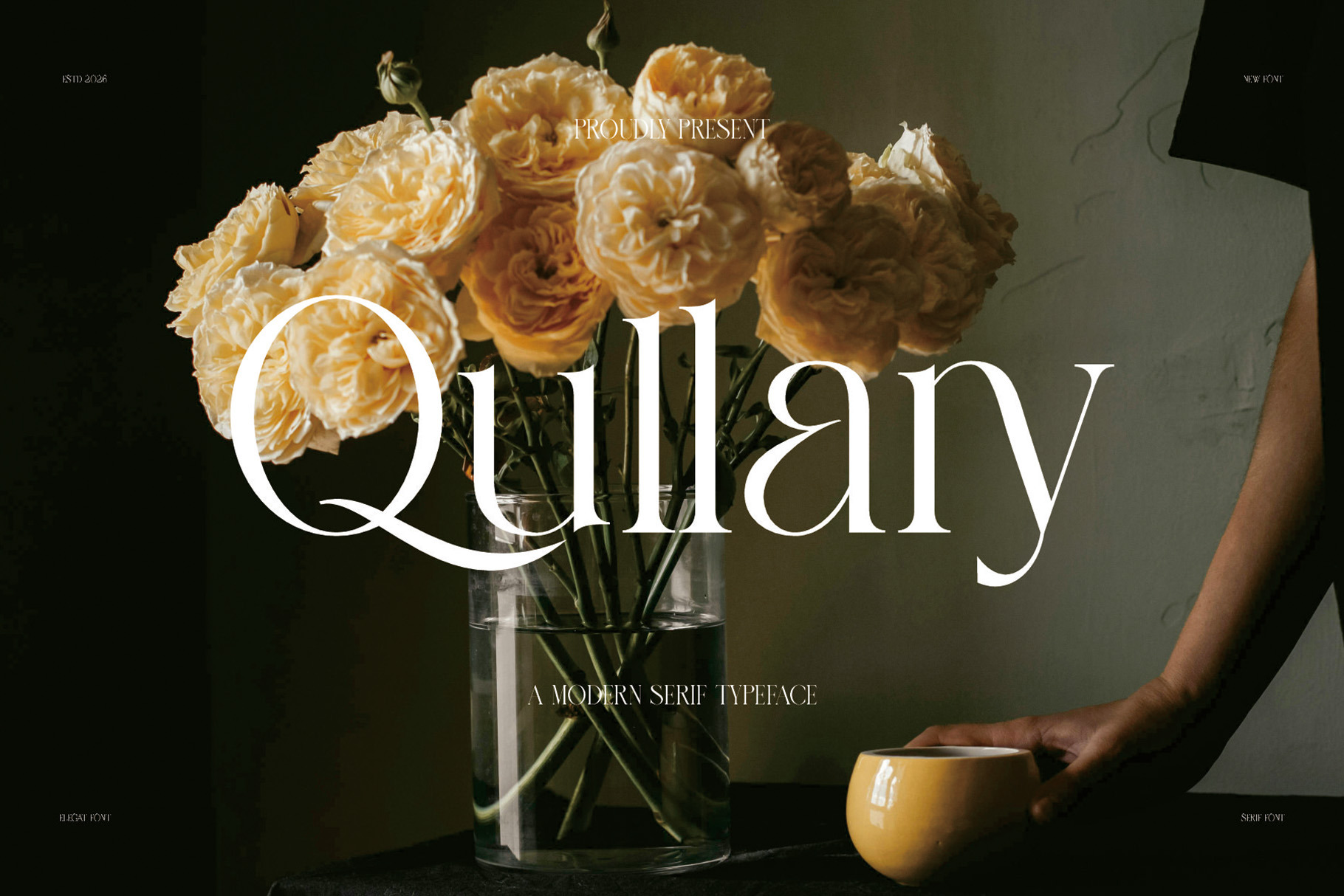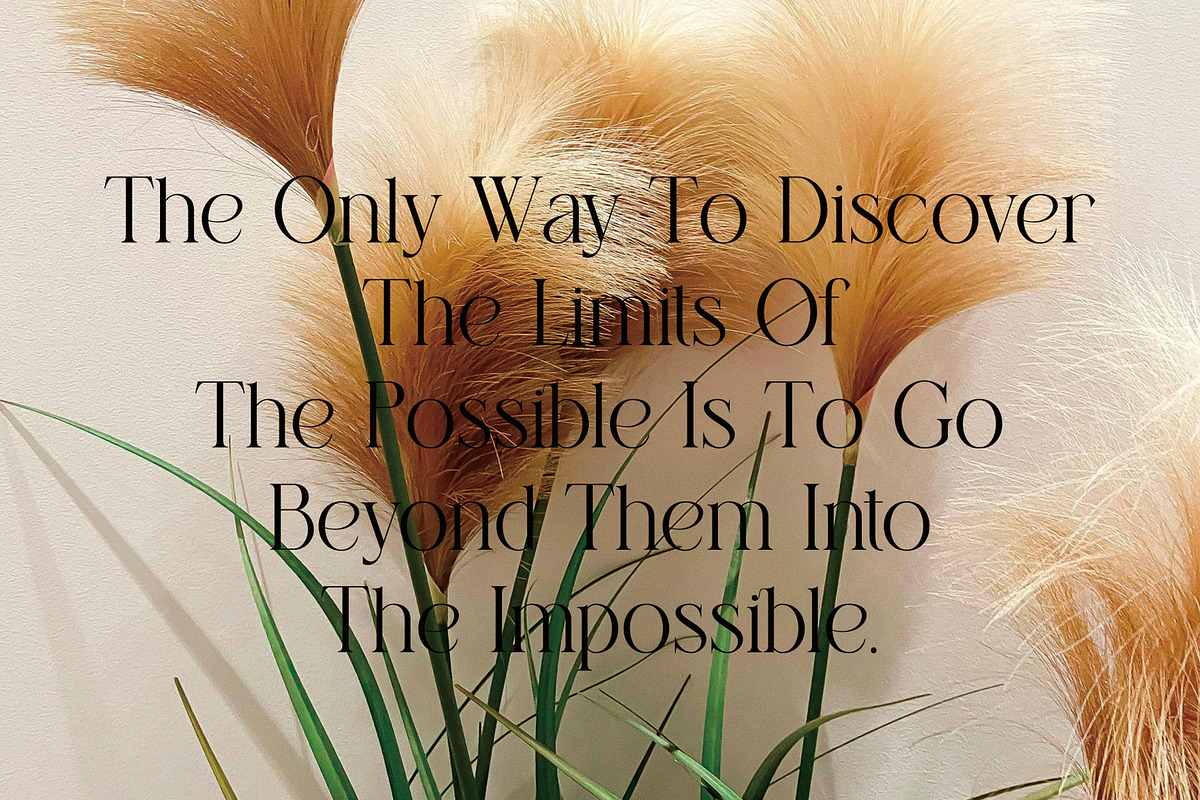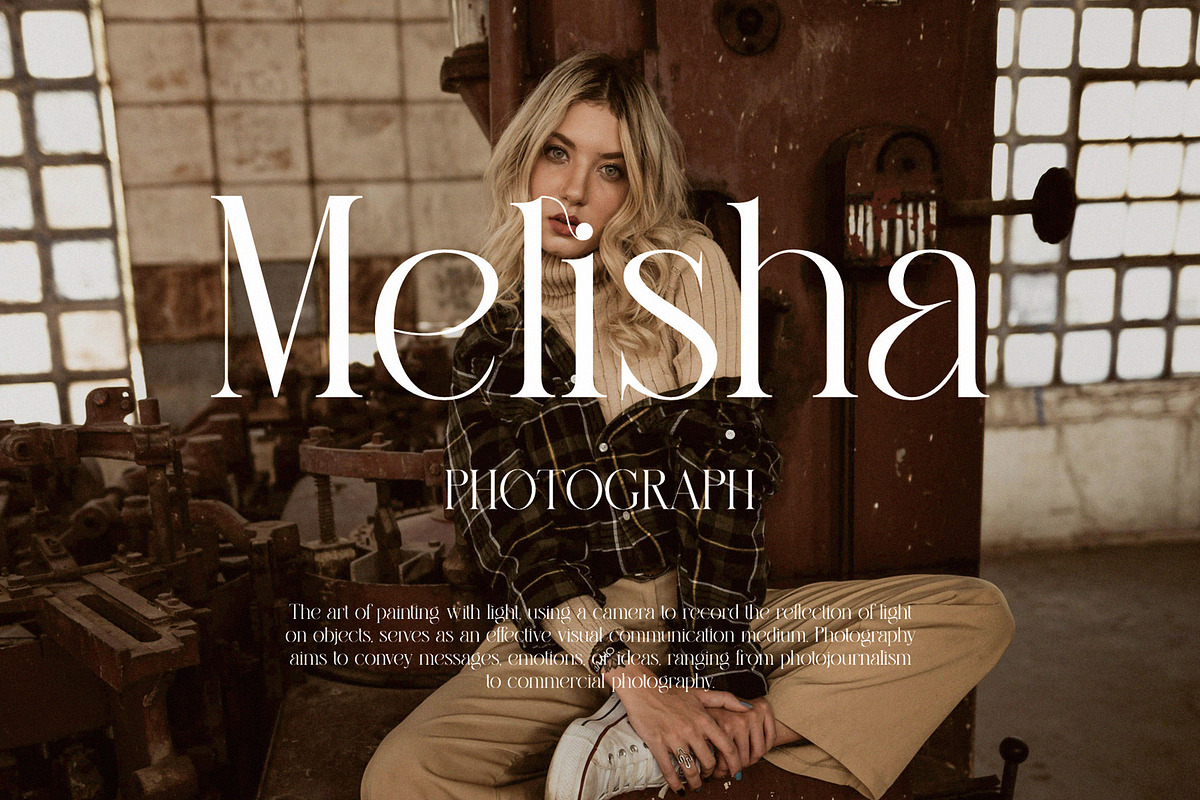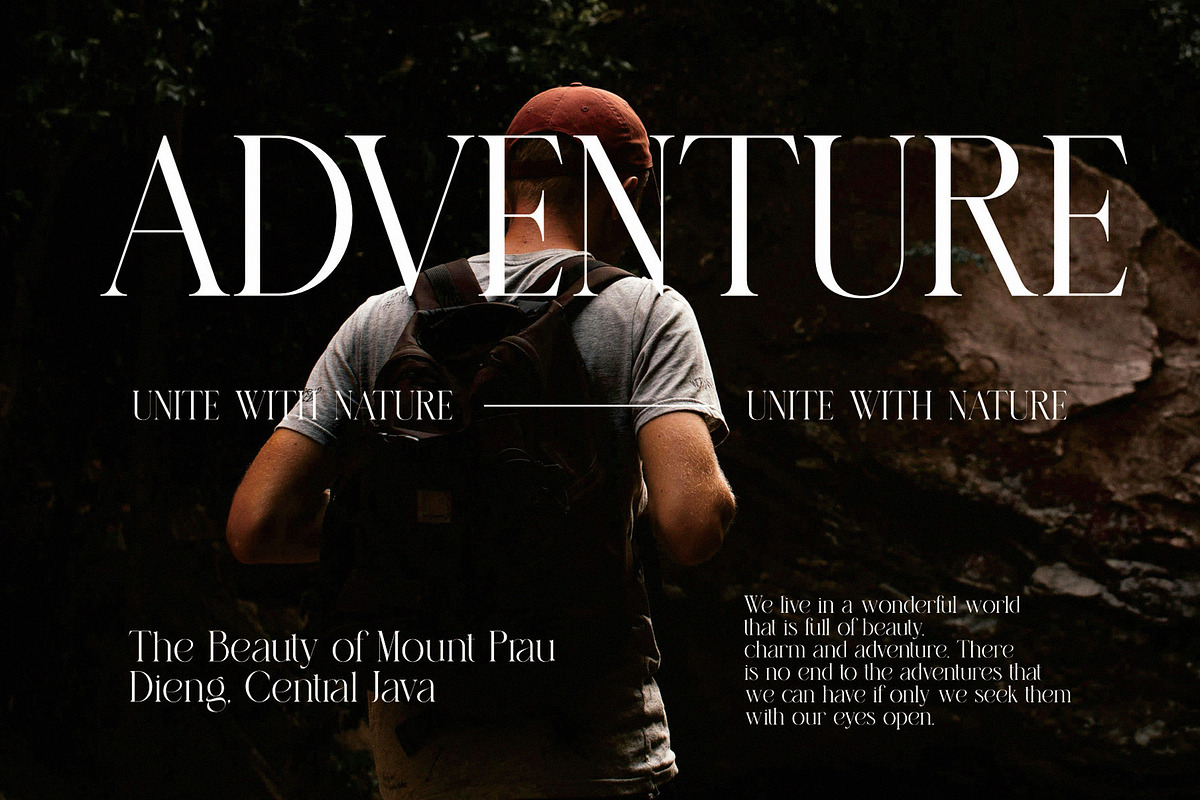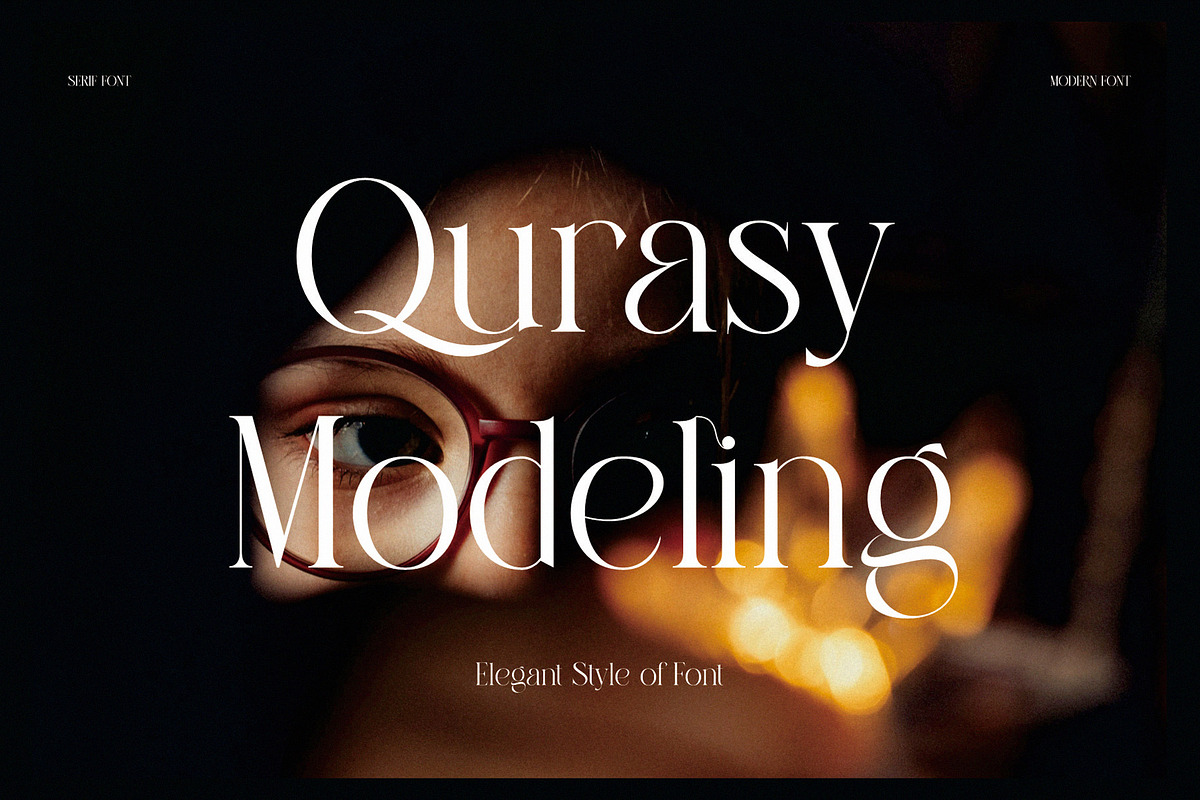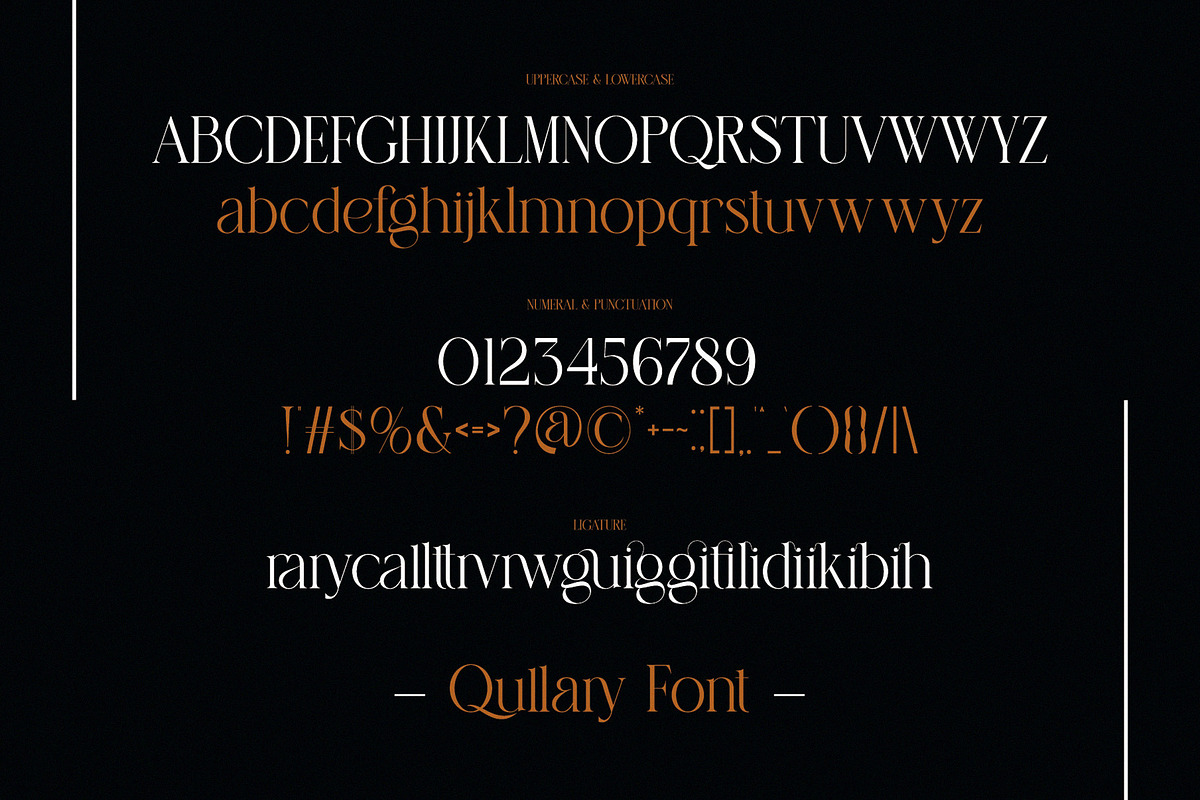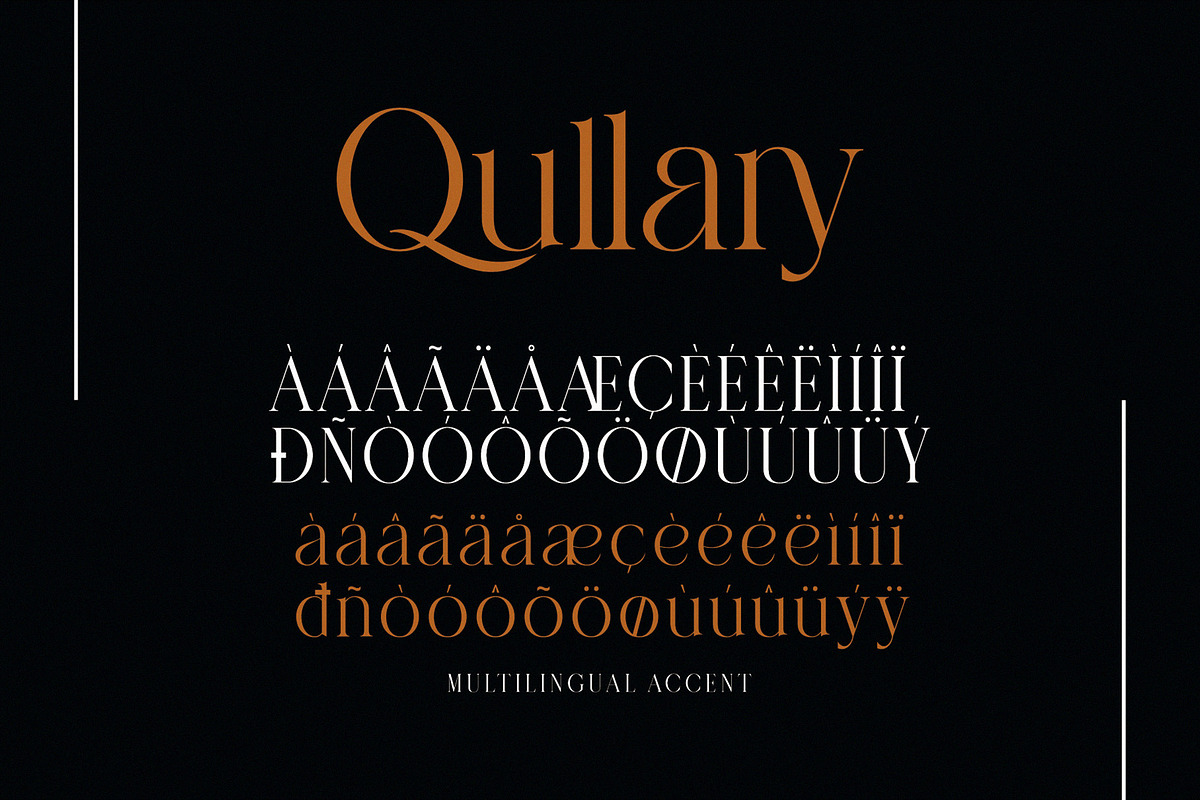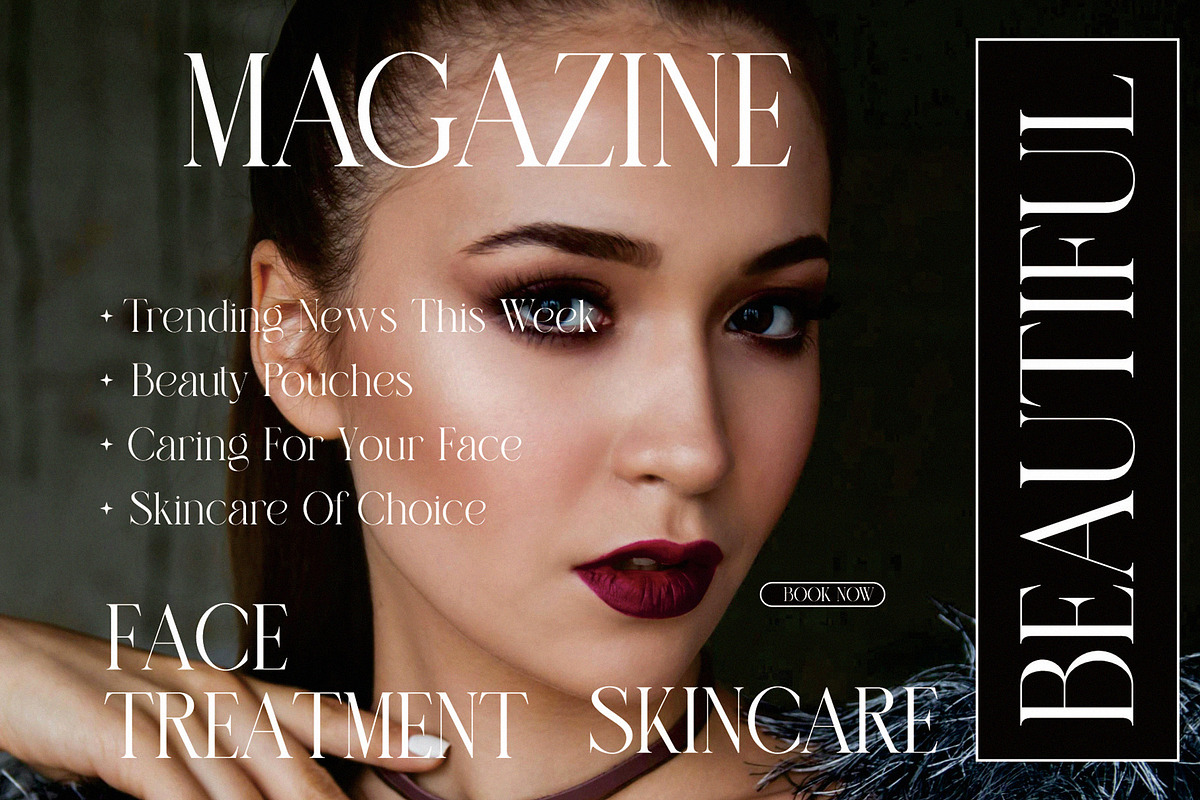
Qullary Modern Serif Typeface
Introducing Qullary Serif Font — a typeface that blends timeless elegance with a subtle modern touch. Designed for those who want to stand out with sophistication, without losing warmth and personality.
Qullary features balanced proportions, refined serif details, and a smooth typographic rhythm that ensures readability across various media. Perfect for branding, editorial design, logos, and any premium project that demands an exclusive feel.